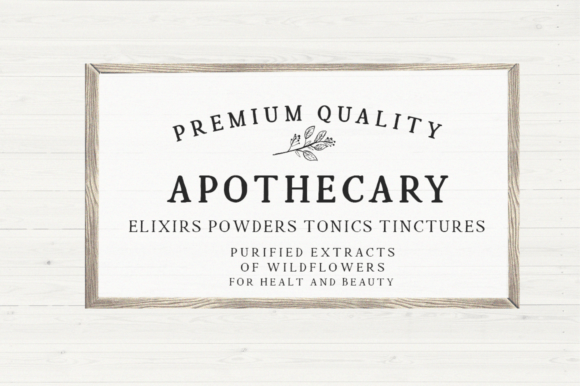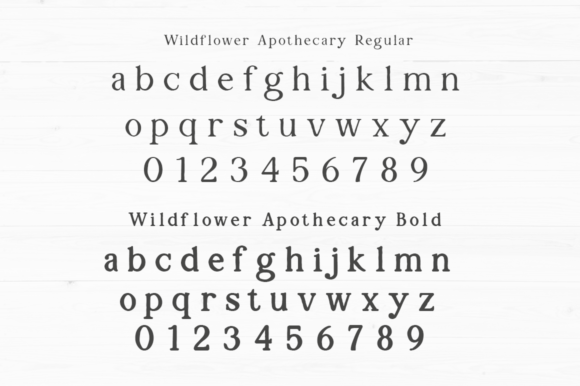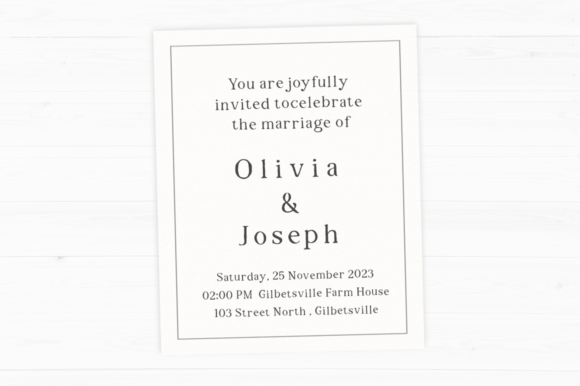
Wildflower Apothecary Font
Wildflower Apothecary is a handwritten serif font, with two regular and bold variations as well as organic imperfections, ideal for Farmhouse Decor, Quote Signs, Invitations, Personalized Products, Brand Logos, T-shirts, Cricut, and more!